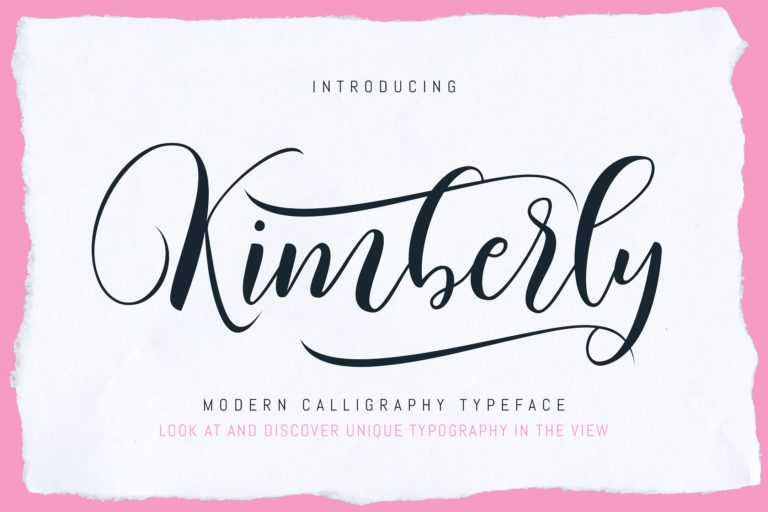
Kimberly Calligraphy
Kimberly Calligraphy Font
Kimberly Script is a modern calligraphy script font that gives your design an authentic cheating. perfect for signatures, wedding, invitation, card, stationery, logos, typographic quotes, book covers, website headers, flyers, clothing, branding, packaging designs and more.